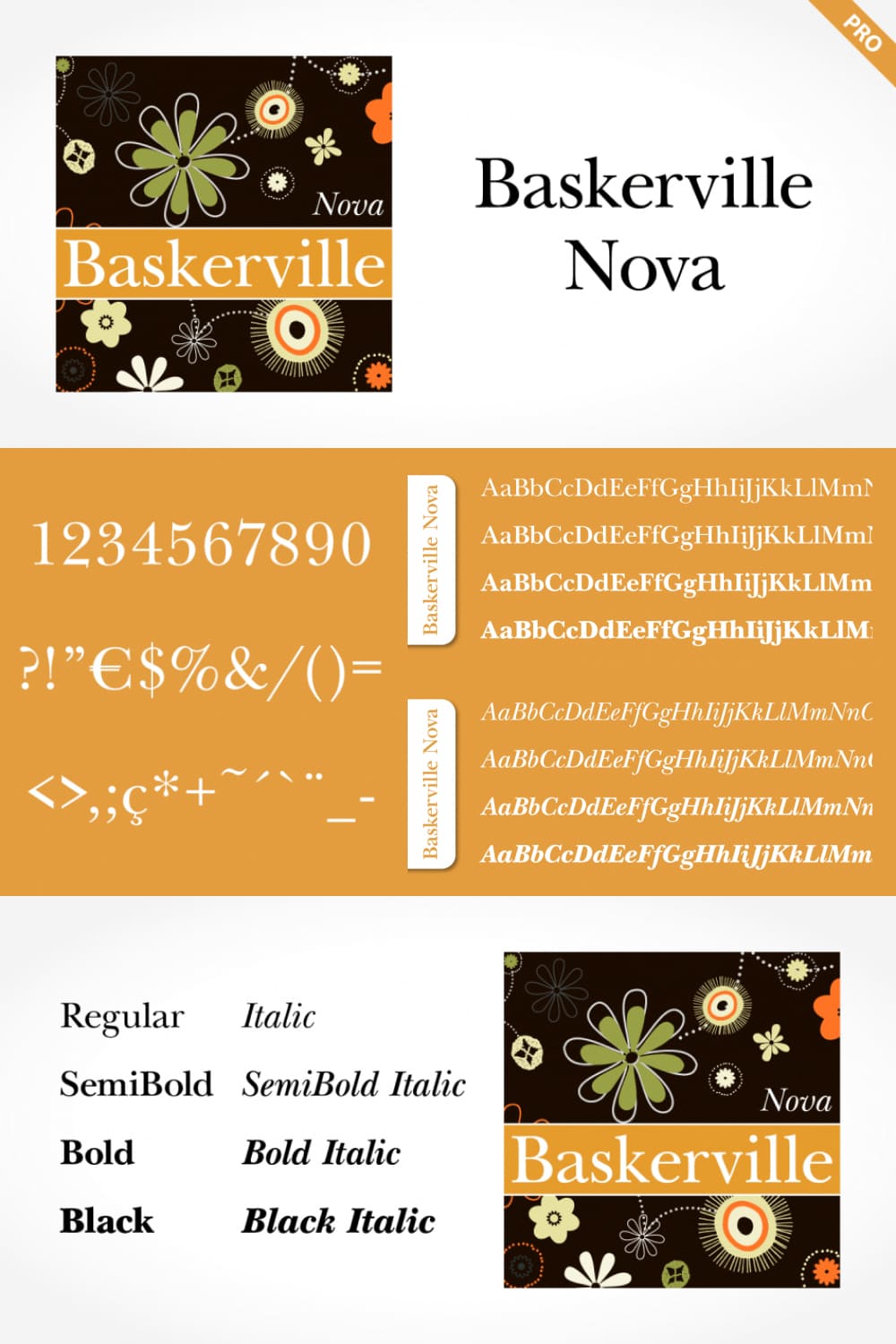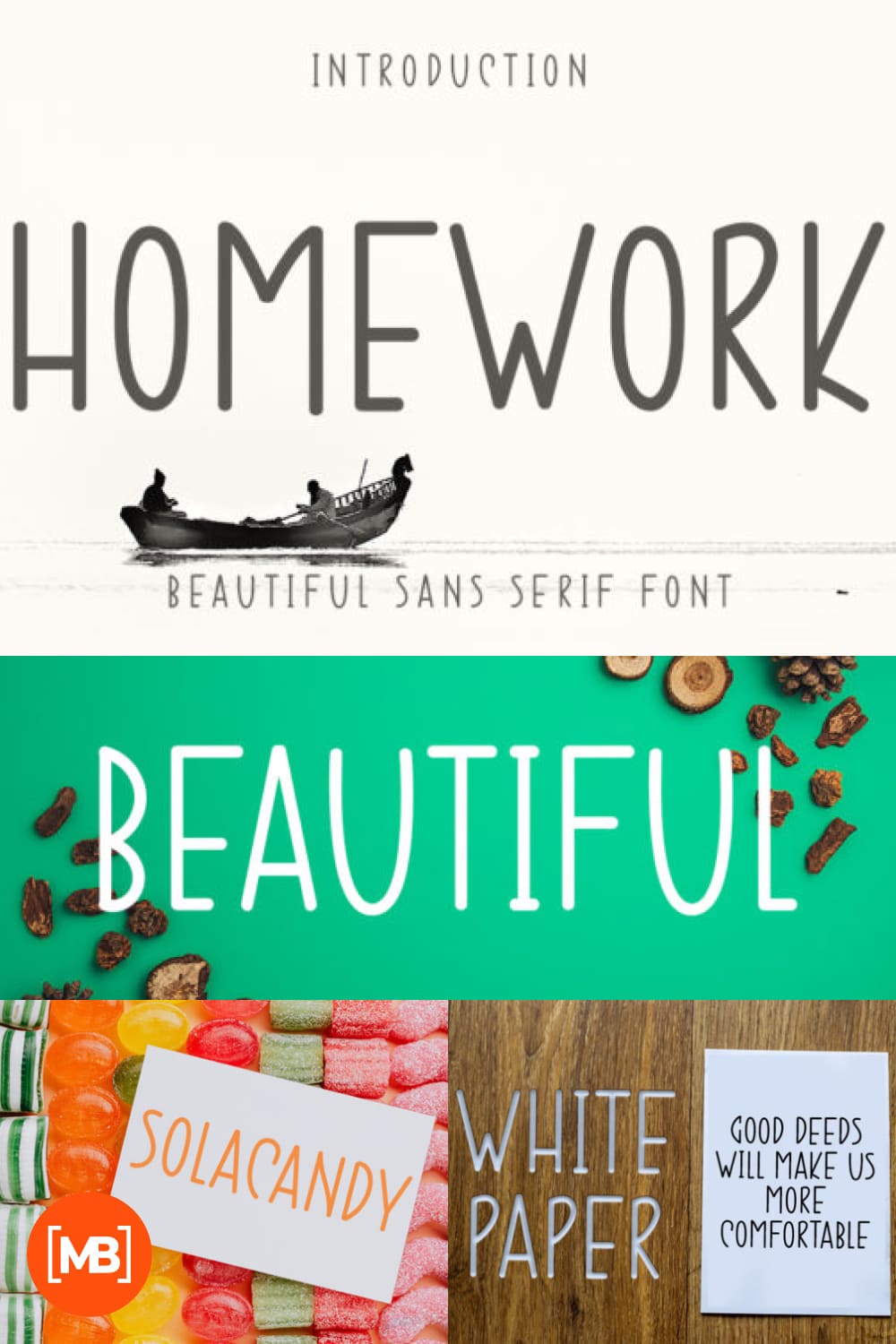
15+ Best Fonts for Books in 2021: Free and Premium Fonts
Fonts for Books. Choosing a great font for your book is a problem that worries novice creators of fiction and science literature. After all, the typeface directly affects how people perceive the work and whether they can read and understand the main message. The job of a typography designer is to find the perfect script for your book, banner, ads, newspaper, etc. The main rule for making sure you choose the appropriate typeface style is that it is easy to read. When you read text you become absorbed in the story, you are filled with the author’s emotions, and you learn new information. The last thing you should notice is how the typeface looks.
Always remember that by meeting the physiological requirements of the reader’s eyesight you will quietly achieve a better aesthetic impression of the work of printing art, which the book you are creating should be. Remember also that classical simplicity is always above garish and expensive complexity of ornate embellishment. But you don’t even have to think about the typeface selection because MasterBundles has done all the work for you. Enjoy these best fonts for books carefully chosen specifically for your inspiring projects.
Best Premium Fonts for Books
Best Free Fonts for Books